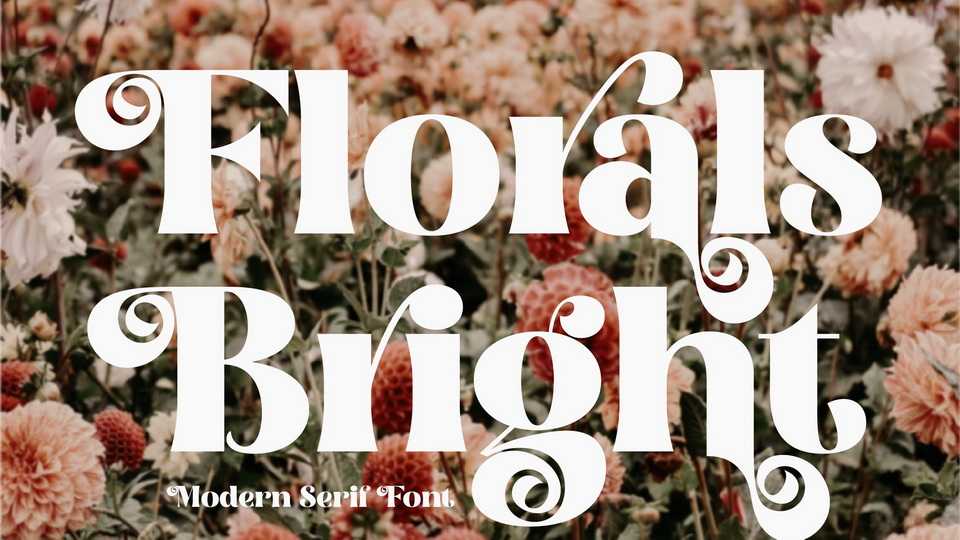
Download Florals Bright font, a chic and trendy serif typeface that has own unique style and vintage look. Florals Bright is perfect for an elegant and luxury logo, book or movie title design, fashion brand, magazine, clothes, lettering, quotes, and so much more.